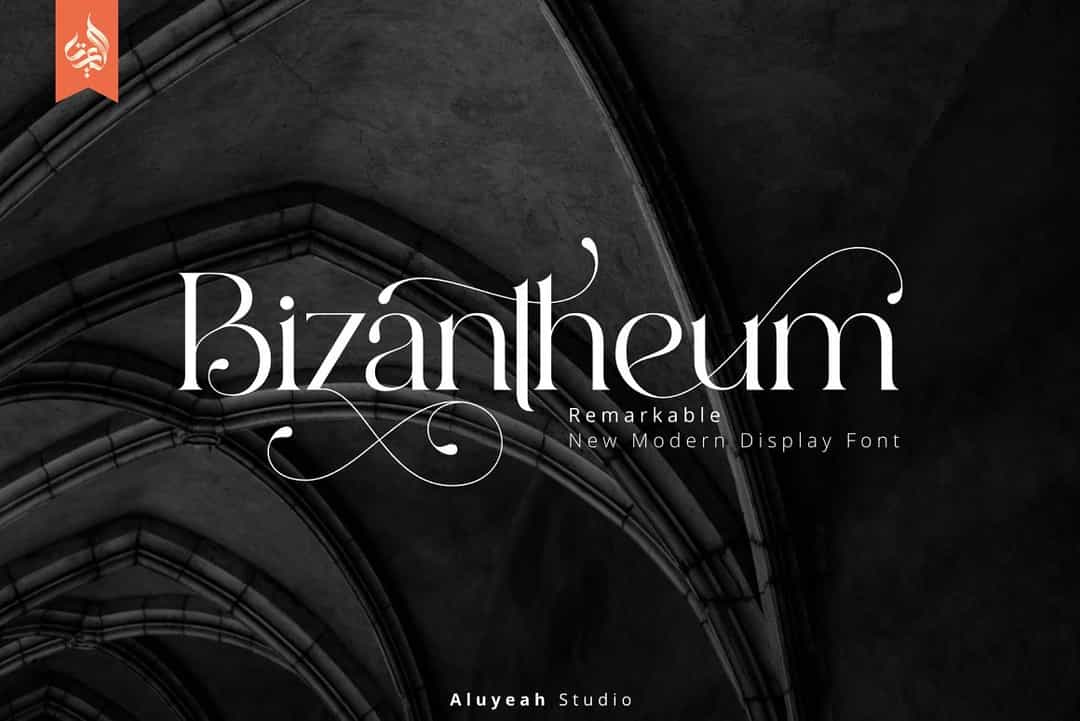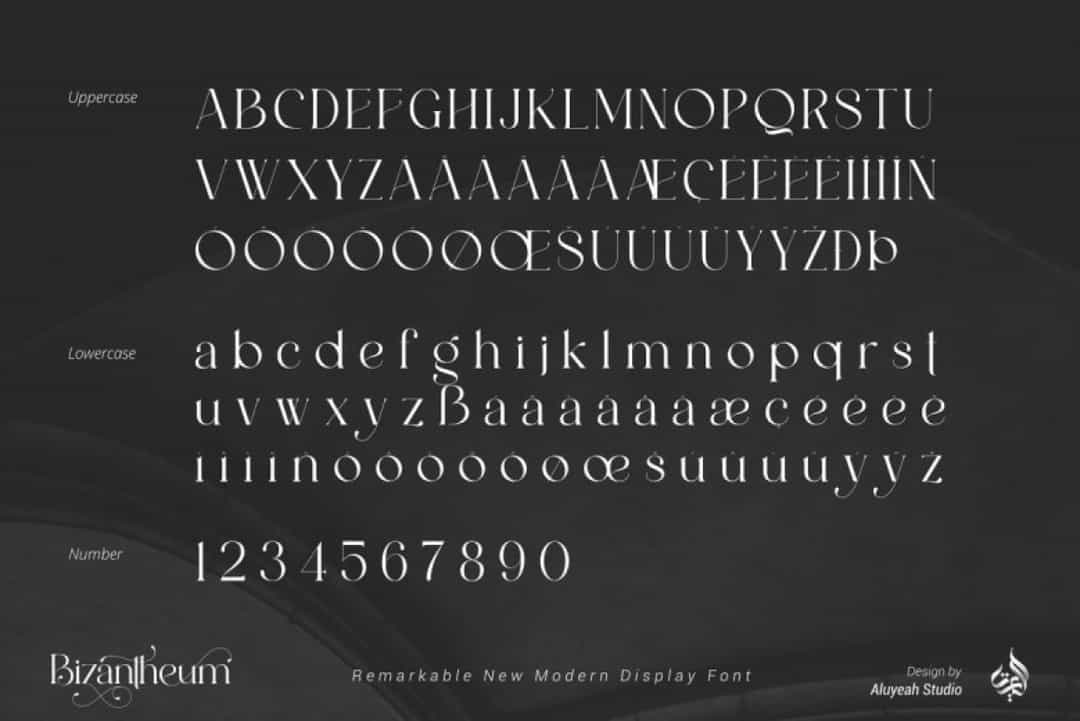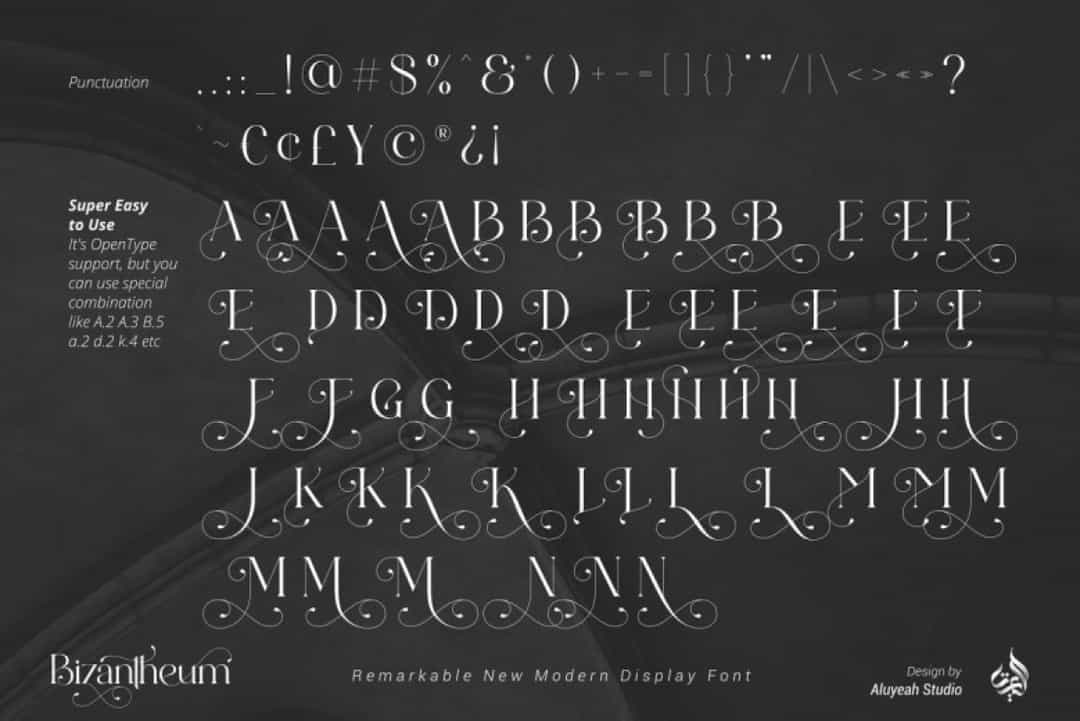
Bizantheum, an impressive new modern font, draws its inspiration from Byzantine architecture’s splendor and grandeur. Boasting over 130 stunning and user-friendly alternatives, Bizantheum makes an excellent choice for magazine headlines, website advertising, product packaging design projects or any other design endeavors you may undertake.